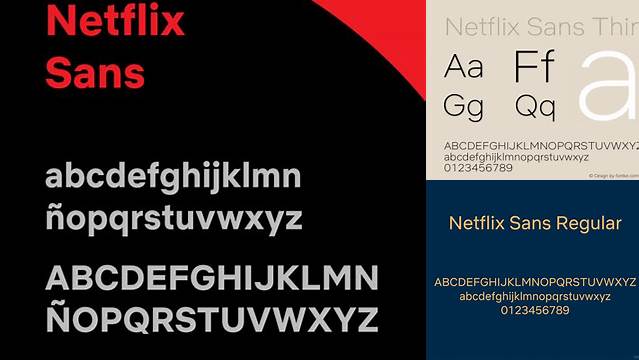
Netflix Sans Font: Where To Find It And Free Alternatives
Netflix Sans is more than just a font; it's a visual representation of a global entertainment brand. The font family's clean lines and modern aesthetic have made it a favorite among designers and typographers. If you're looking to download Netflix Sans for free and incorporate it into your projects, you've come to the right place. This comprehensive guide will walk you through everything you need to know, from the font's history and design to its uses and how to get it. Let's dive in, guys!
The Story Behind Netflix Sans
Before we get into the nitty-gritty of downloading, let's take a moment to appreciate the backstory of this iconic font. In 2017, Netflix decided to commission its own custom font, a move that might seem like a small detail but was actually a significant branding decision. Why? Because fonts have the power to evoke emotions and convey brand personality. Netflix wanted a font that was not only legible across various devices and screen sizes but also reflected the company's innovative and global nature.
They turned to the renowned type foundry, Dalton Maag, to bring their vision to life. The result was Netflix Sans, a sans-serif typeface that embodies simplicity and modernity. The font was designed to be versatile, working equally well in headlines, body text, and user interfaces. Its clean, geometric shapes give it a contemporary feel, while its subtle curves add a touch of warmth and approachability. This thoughtful design ensures that Netflix Sans is both functional and aesthetically pleasing, making it a perfect fit for a brand that aims to deliver seamless and engaging experiences.
The creation of Netflix Sans also had a practical purpose: cost savings. By using a custom font, Netflix could reduce its licensing fees, which can be quite substantial for a company of its size. This strategic move highlights the importance of typography in branding and the potential for custom fonts to provide both visual identity and financial benefits. The font's design also ensures optimal readability across various platforms, crucial for a streaming service accessible on everything from smartphones to smart TVs. Netflix Sans has become synonymous with the brand's identity, appearing in its logo, website, app, and marketing materials. Its consistent use helps reinforce Netflix's brand recognition and creates a cohesive visual experience for its millions of subscribers worldwide. The font's global appeal is also a testament to its design, which transcends cultural and linguistic boundaries. It's a font that feels modern and familiar, no matter where you are in the world.
Key Characteristics of Netflix Sans
So, what makes Netflix Sans stand out from the crowd? Let's break down its key characteristics. The font is a sans-serif typeface, which means it lacks the small decorative strokes (serifs) found in fonts like Times New Roman or Garamond. This gives it a clean and contemporary look, perfect for modern designs. Netflix Sans boasts excellent legibility, thanks to its well-proportioned letterforms and generous spacing. Each character is carefully crafted to ensure it's easily readable, whether on a large screen or a small mobile device. This is a crucial factor for Netflix, as its content is consumed on a wide range of devices.
The font's geometric shapes contribute to its modern aesthetic. The letters have a consistent stroke weight and a balanced appearance, creating a sense of harmony and visual appeal. However, Netflix Sans isn't just about sharp angles and straight lines. It also incorporates subtle curves that add a touch of warmth and personality. These curves prevent the font from feeling too cold or sterile, making it more inviting and engaging. This balance between geometric precision and organic curves is one of the key features that sets Netflix Sans apart. It's a font that feels both modern and approachable, reflecting Netflix's brand values.
Netflix Sans is also highly versatile. It works well in a variety of contexts, from headlines and titles to body text and captions. Its clean design ensures it doesn't distract from the content, while its distinctive personality helps it stand out. This versatility makes it a valuable asset for designers working on a wide range of projects. The font family includes various weights, from light to bold, giving designers even more flexibility. This allows for creating visual hierarchy and emphasis within a design, ensuring key information stands out. The different weights also make Netflix Sans suitable for different media, from print to digital.
Furthermore, Netflix Sans has been optimized for screen use. Its letterforms are designed to render clearly on digital displays, even at small sizes. This is crucial for a streaming service like Netflix, where users consume content on various devices. The font's excellent legibility ensures a comfortable viewing experience, no matter the screen size or resolution. Netflix Sans is a testament to thoughtful design, combining functionality with aesthetic appeal. Its key characteristics make it a versatile and valuable typeface for a wide range of applications.
Why Designers Love Netflix Sans
Designers are a discerning bunch, so what is it about Netflix Sans that makes them swoon? First and foremost, it's the font's versatility. As mentioned earlier, Netflix Sans works beautifully in a variety of applications. Whether you're designing a website, creating marketing materials, or crafting a sleek user interface, this font has got your back. Its clean and modern aesthetic makes it a perfect choice for projects that need to convey a sense of sophistication and innovation. The font's geometric shapes and subtle curves strike a balance between professionalism and approachability, making it suitable for a wide range of industries and brands. This versatility is a major selling point for designers who need a reliable and adaptable typeface.
Another reason designers love Netflix Sans is its legibility. In the world of typography, readability is king. A beautiful font is useless if it's difficult to read. Netflix Sans excels in this area, thanks to its well-proportioned letterforms and generous spacing. This ensures that text remains clear and legible, even at small sizes or on lower-resolution screens. This is particularly important for digital design, where users may be viewing content on a variety of devices and screen sizes. The font's legibility makes it a practical choice for body text, captions, and other long-form content. Designers appreciate the peace of mind that comes with knowing their message will be conveyed clearly and effectively.